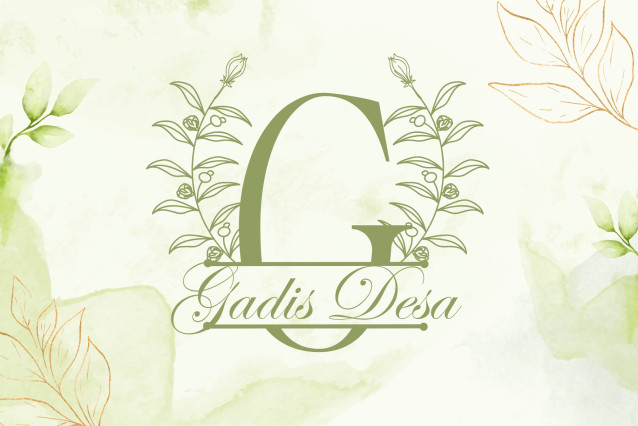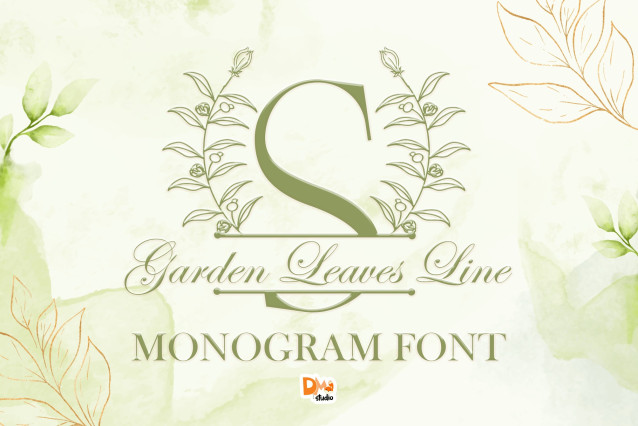
Garden Leaves Line Monogram Font
Garden Leaves Line Monogram is a beautifully minimal set of monogram initials featuring graceful line-art leaves entwined around each letter. This refined, nature-inspired design brings sophistication and calm to your creative projects — perfect for weddings, branding, home décor, invitations, logos, and personalized gifts. Its clean botanical aesthetic is ideal for both print and digital formats, offering timeless elegance with a modern organic twist.